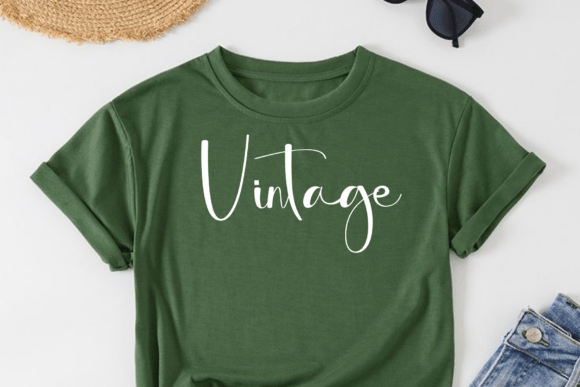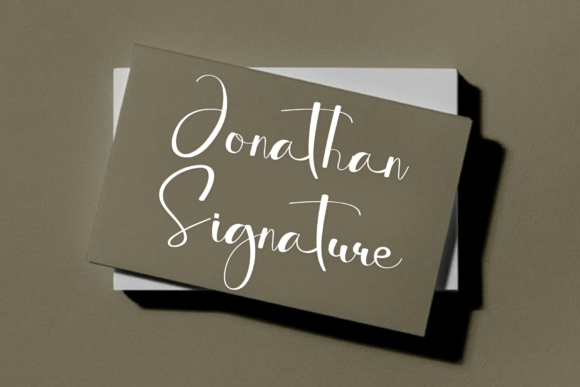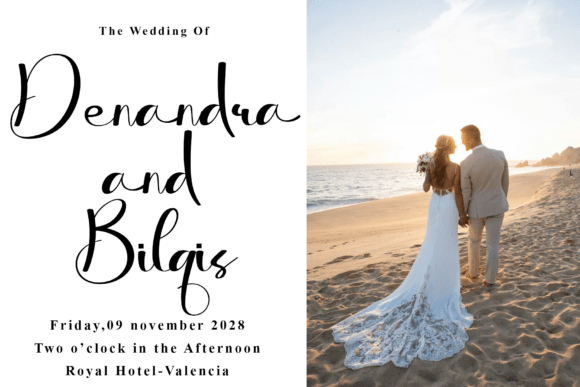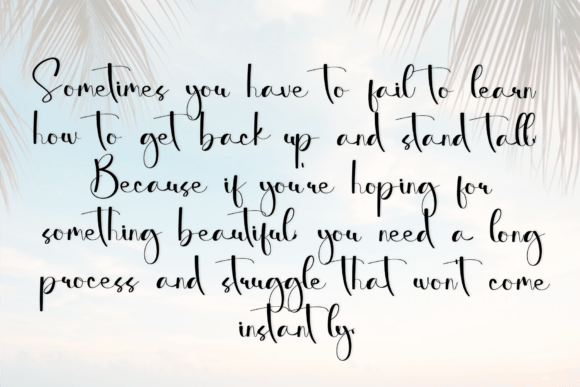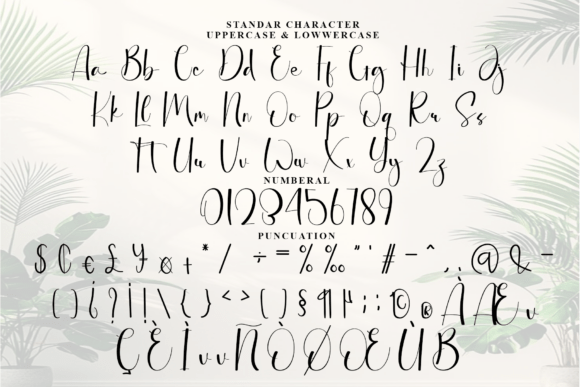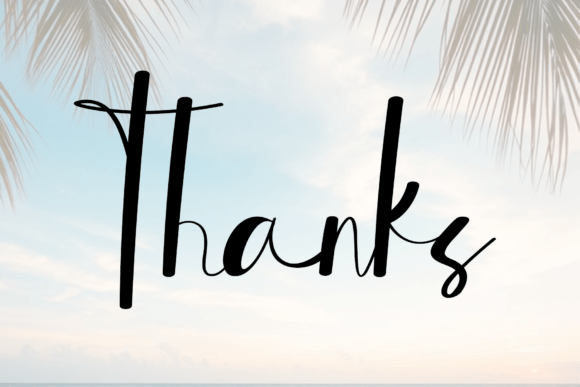
Discover the Elegance of Bridgetown Font: A Sophisticated Script for Autumnal Designs
As the seasons change and autumn arrives, designers and crafters are on the lookout for typography that captures the essence of this cozy and inviting time of year. Look no further than the Bridgetown Font, a sophisticated and rhythmic script font that embodies a unique and professional autumnal visual voice. In this article, we’ll dive into the features and benefits of Bridgetown, and explore how it can elevate your seasonal designs.
The Characteristics of Bridgetown Font
Bridgetown is part of a modern handwritten collection that boasts high-contrast strokes with thick, grounded downstrokes and delicate hairline connectors. This distinctive combination gives the font its elegant and refined appearance, perfect for designs that require a touch of sophistication. The typeface is characterized by vertically elongated letterforms and graceful, looping ascenders that mimic high-end inkwork, adding a level of craftsmanship to your designs.
What Makes Bridgetown Font So Special?
So, what sets Bridgetown apart from other script fonts on the market? Here are just a few reasons why this font is a premier asset for designers and crafters:
- Autumnal aesthetic: Bridgetown’s unique visual voice is perfectly suited to autumnal designs, evoking the warmth and coziness of the season.
- High-end feel: The font’s high-contrast strokes and elegant letterforms give it a luxurious feel, ideal for high-end branding and editorial designs.
- Versatility: Bridgetown is suitable for a wide range of design applications, from seasonal marketing and packaging to boutique event invitations and editorial headers.
Using Bridgetown Font in Your Designs
So, how can you incorporate Bridgetown into your designs? Here are a few ideas to get you started:
- Seasonal marketing: Use Bridgetown to create eye-catching seasonal campaigns that capture the essence of autumn.
- Artisanal food packaging: Add a touch of elegance to your food packaging with Bridgetown, perfect for boutique brands and specialty foods.
- Boutique event invitations: Create sophisticated and inviting event invitations with Bridgetown, ideal for weddings, harvest festivals, and other autumnal events.
- Sophisticated editorial headers: Use Bridgetown to add a level of sophistication to your editorial designs, from magazine headers to blog posts.
Tips for Working with Bridgetown Font
To get the most out of Bridgetown, here are a few tips to keep in mind:
- Experiment with pairings: Bridgetown pairs beautifully with a range of fonts, from serif and sans-serif fonts to other script fonts.
- Play with color: Autumnal colors like orange, yellow, and red complement Bridgetown perfectly, but don’t be afraid to experiment with other color palettes.
- Pay attention to spacing: Bridgetown’s elegant letterforms require careful attention to spacing to ensure a polished and refined appearance.
In conclusion, Bridgetown Font is a sophisticated and rhythmic script font that embodies the essence of autumn. With its high-contrast strokes, elegant letterforms, and luxurious feel, it’s the perfect asset for designers and crafters looking to create stunning seasonal designs. Whether you’re working on seasonal marketing campaigns, artisanal food packaging, boutique event invitations, or sophisticated editorial headers, Bridgetown is sure to elevate your designs to the next level.